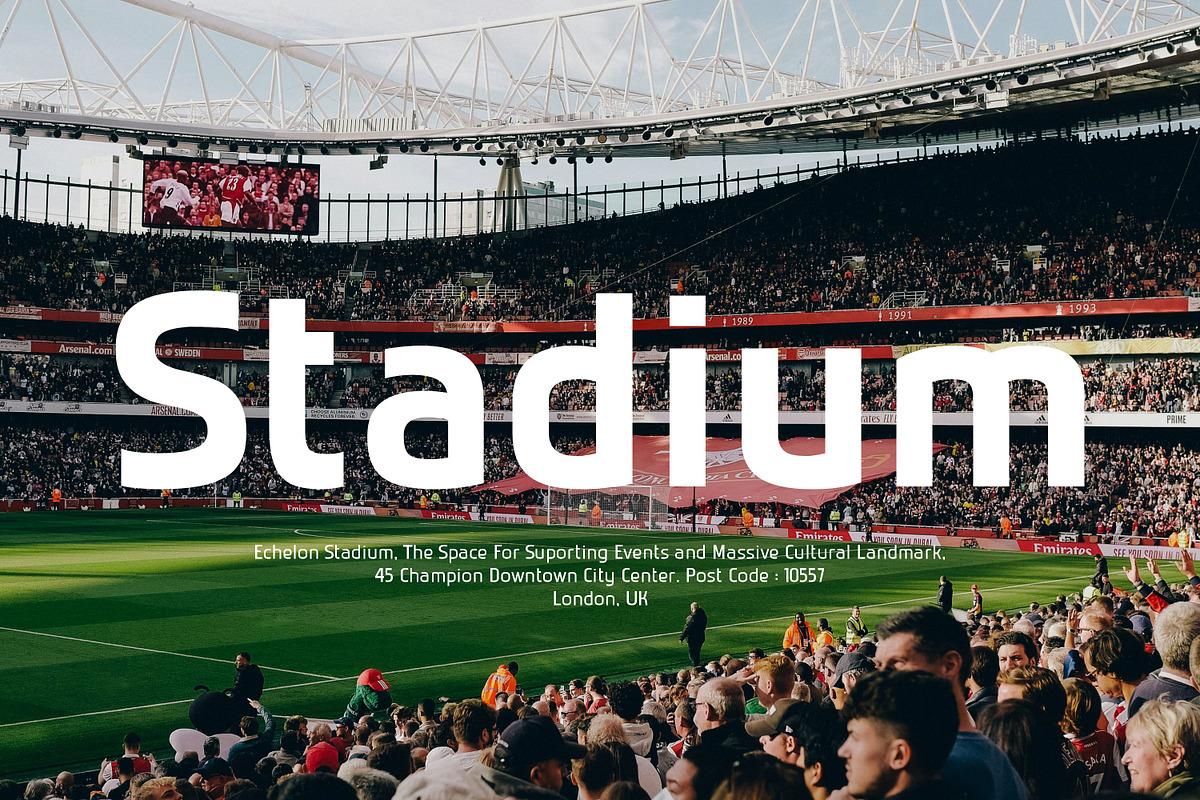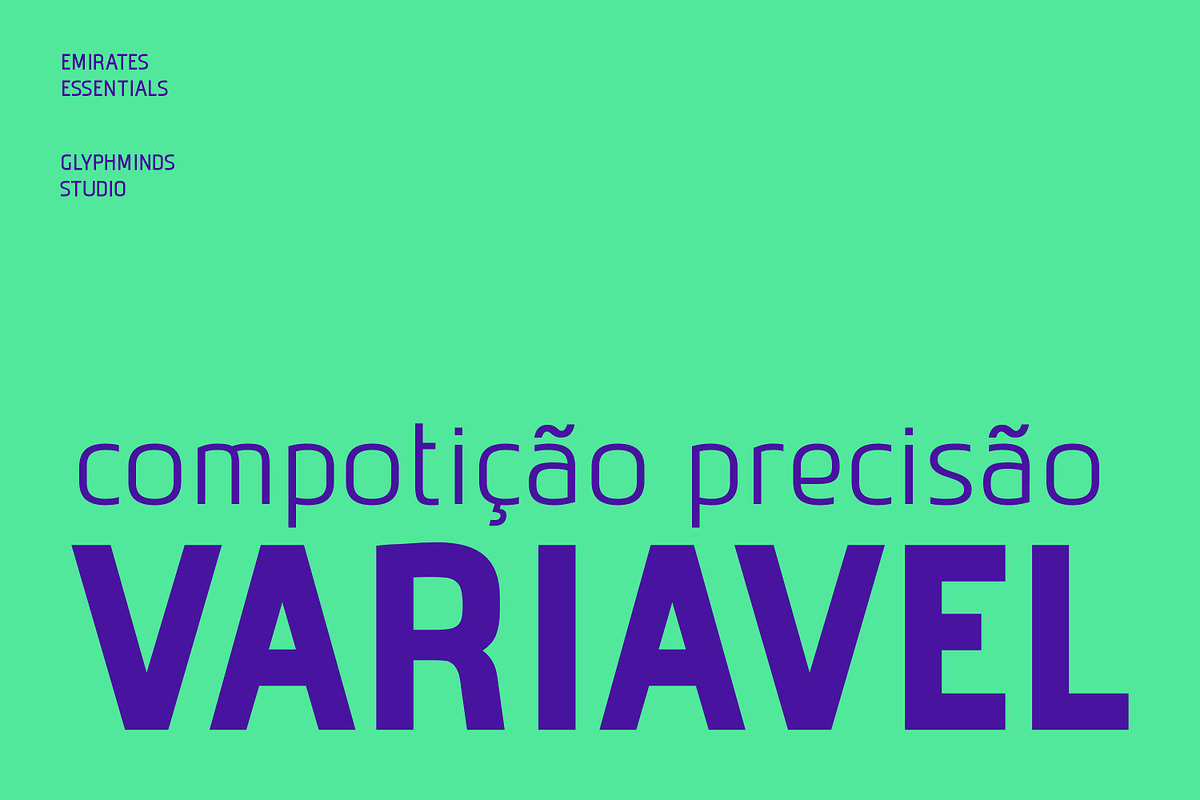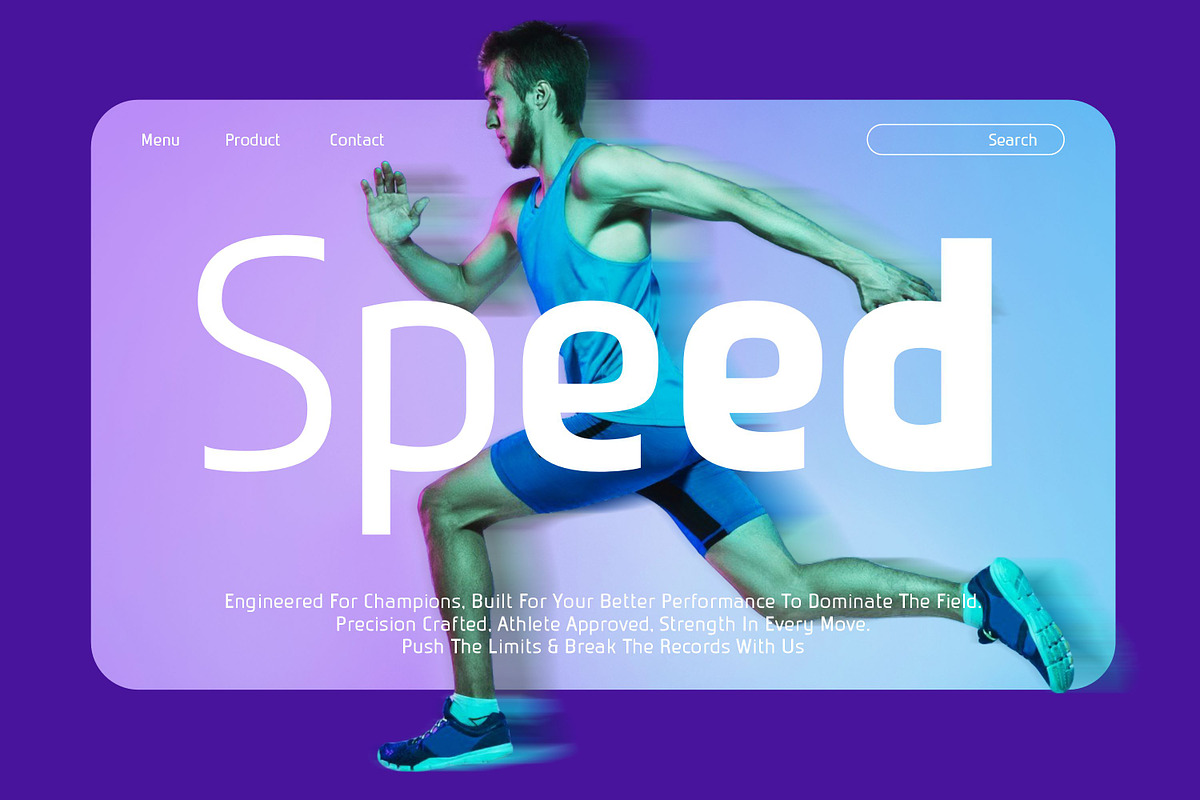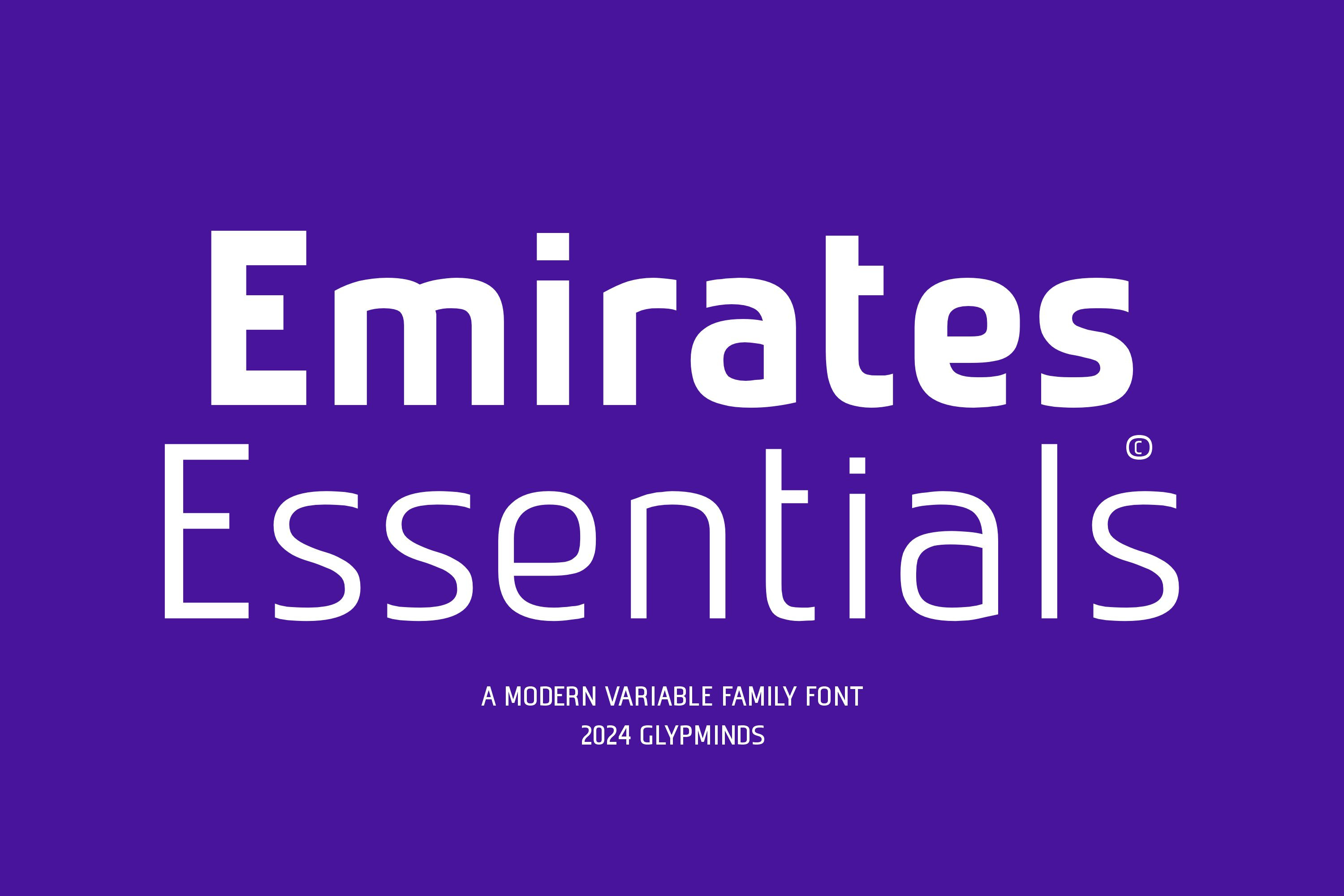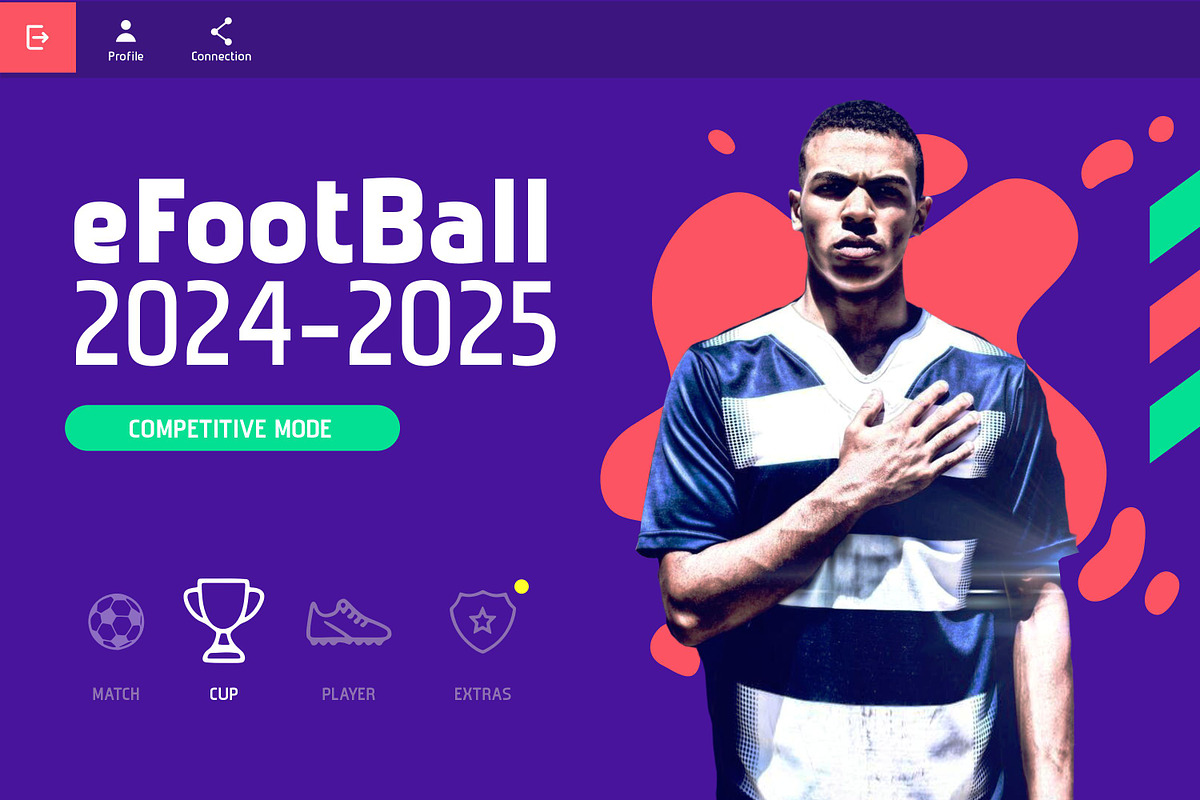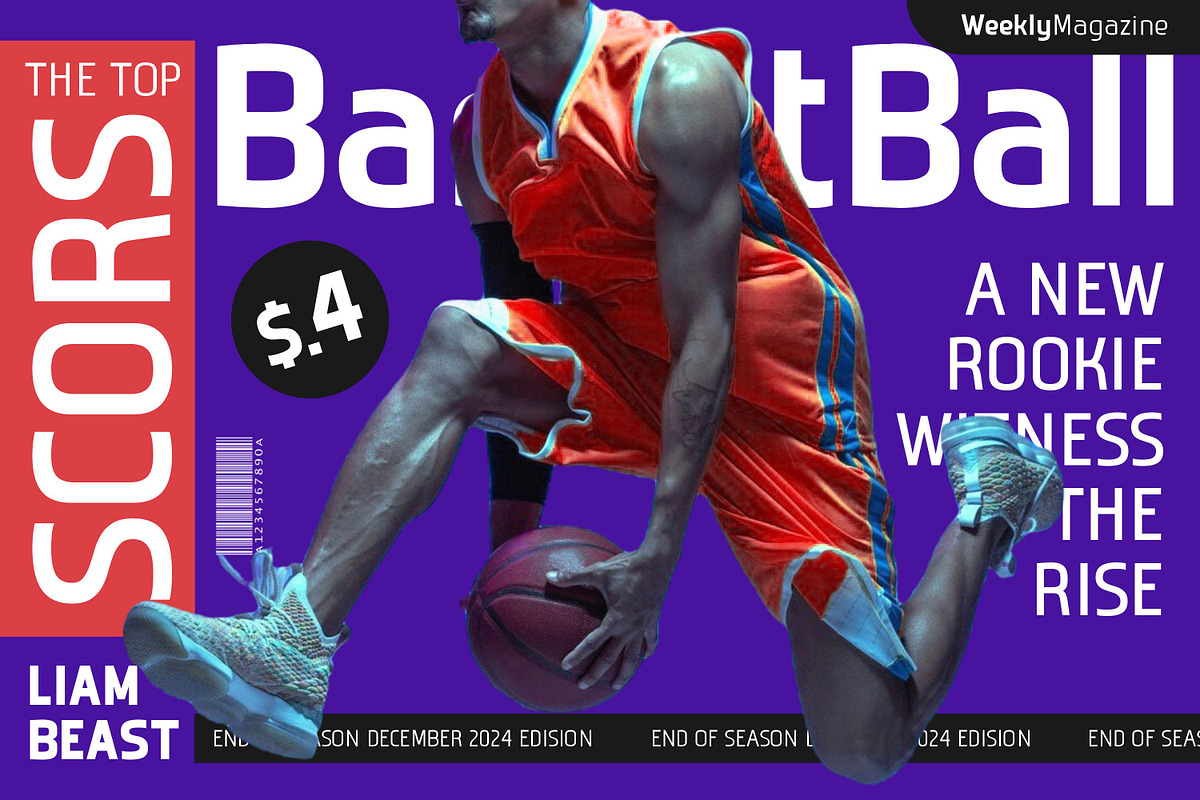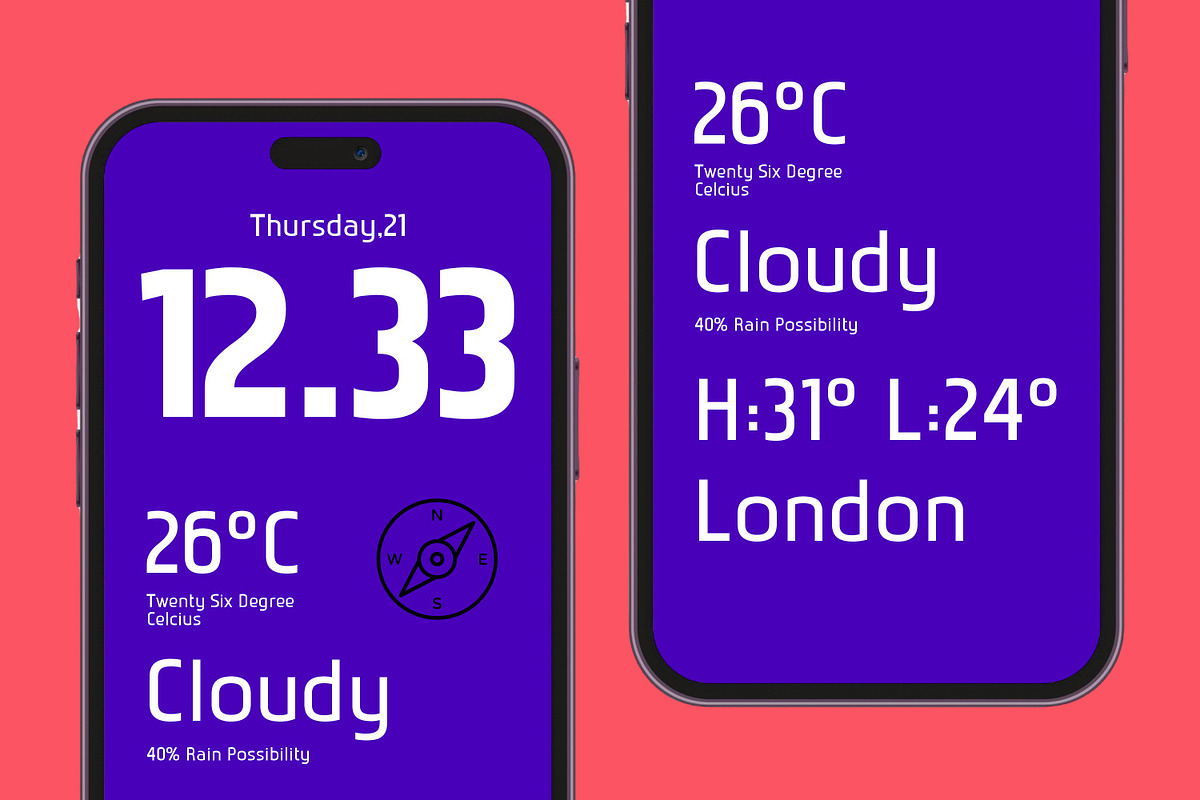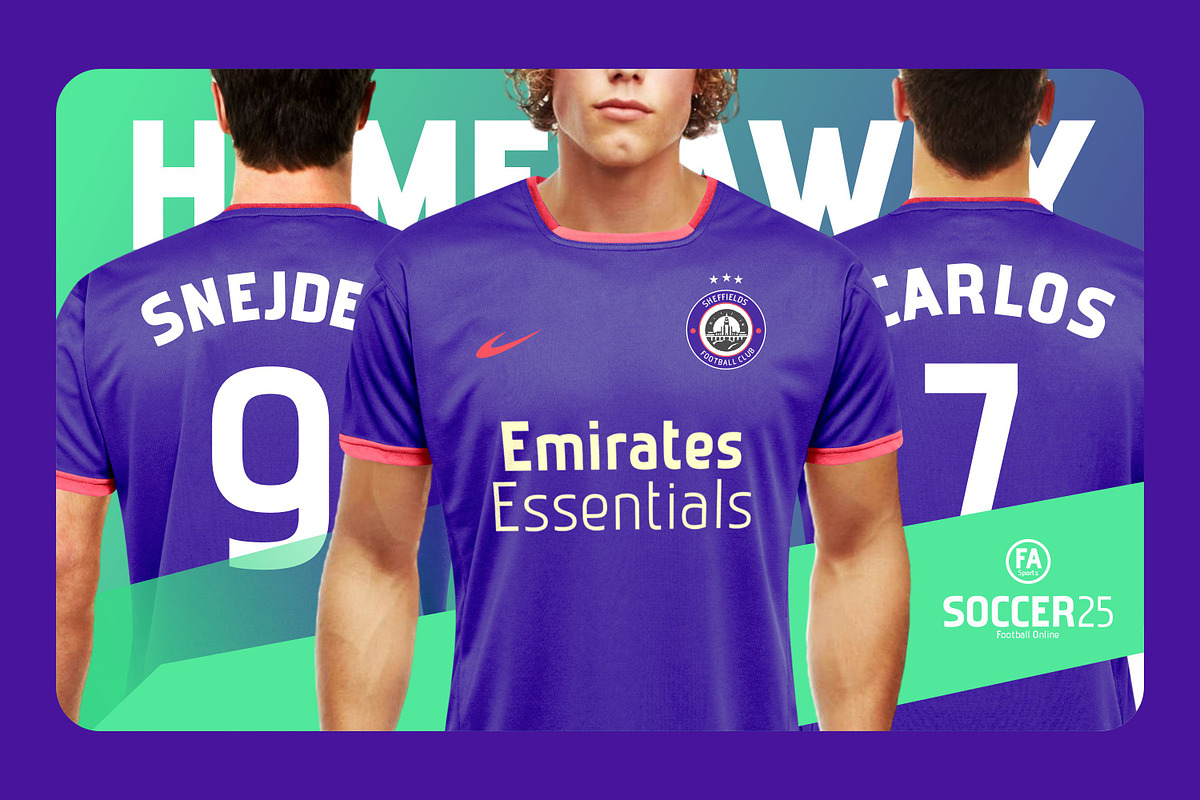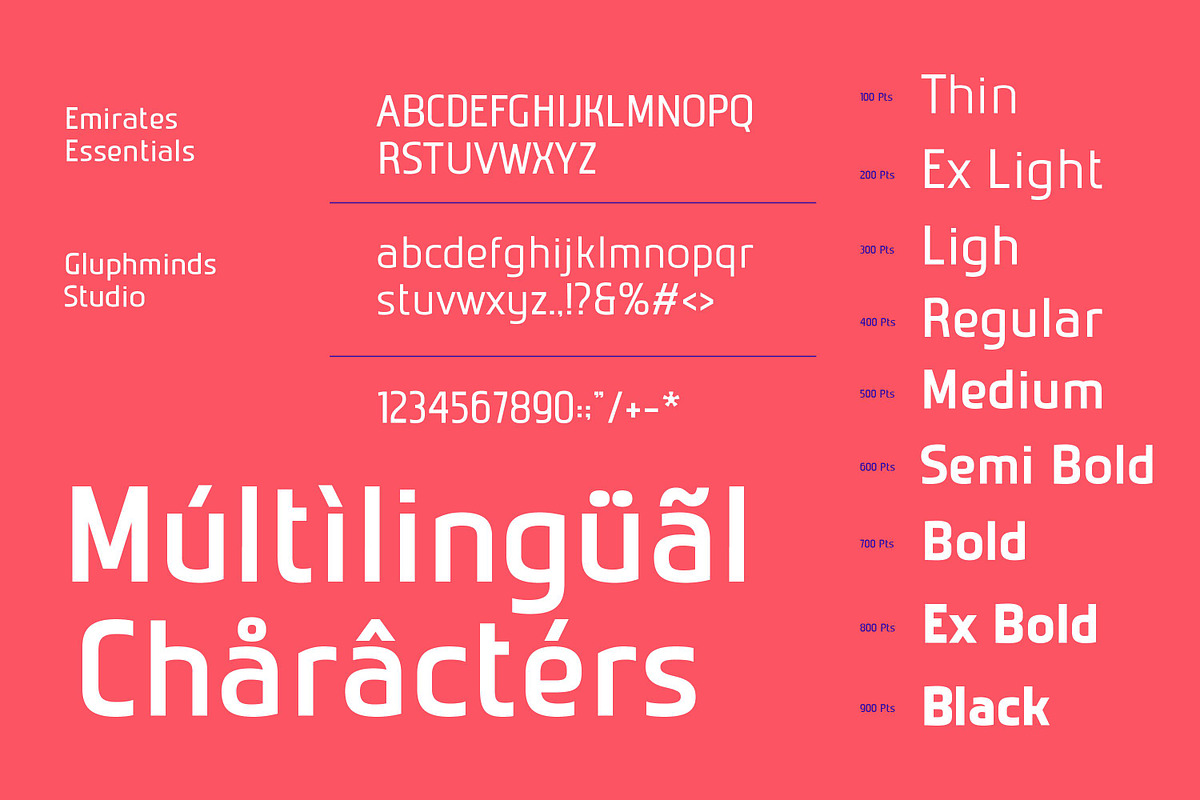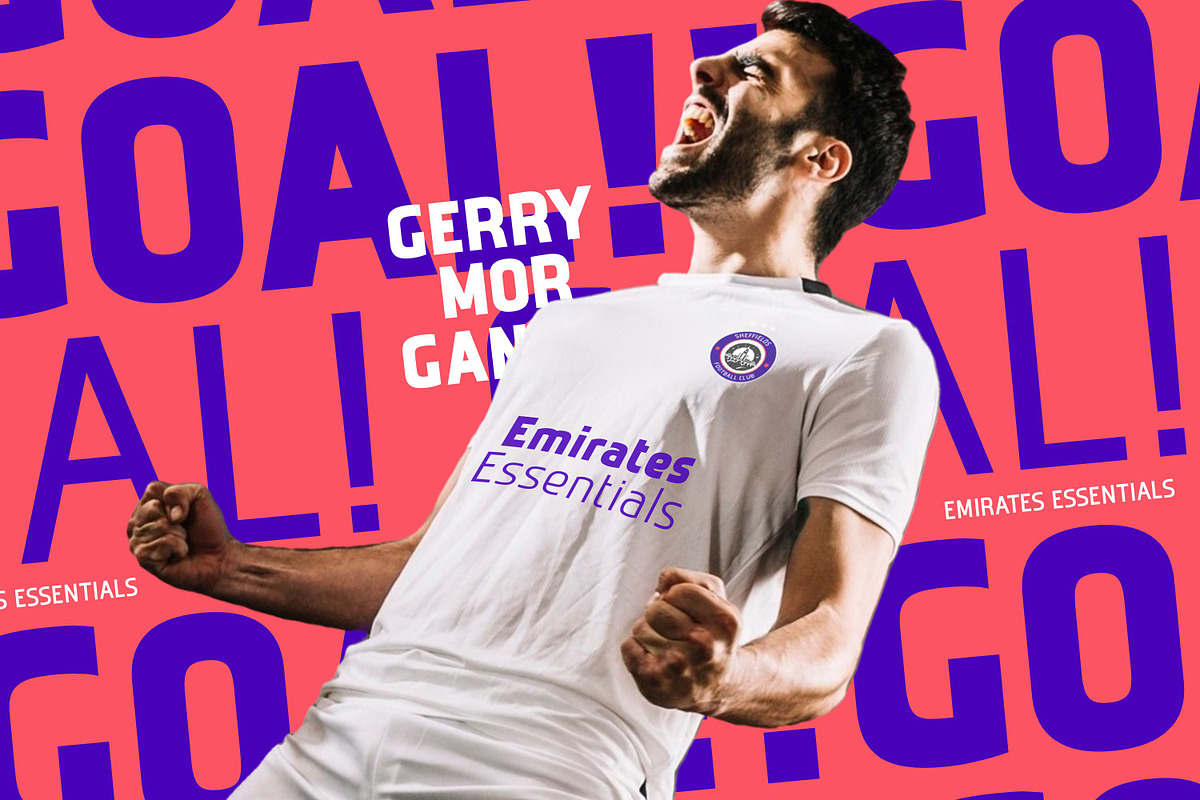
Emirates Essentials Font
Enhance your design projects with Emirates Essentials, a sleek and modern variable font that offers 9 versatile weights to suit any creative need. This font combines contemporary aesthetics with exceptional readability, making it ideal for branding, digital interfaces, packaging, and editorial design. Whether you're creating bold headlines or elegant text blocks, Emirates Essentials provides a seamless experience for both print and digital platforms. Stand out with this professionally crafted typeface that merges functionality with modern style!